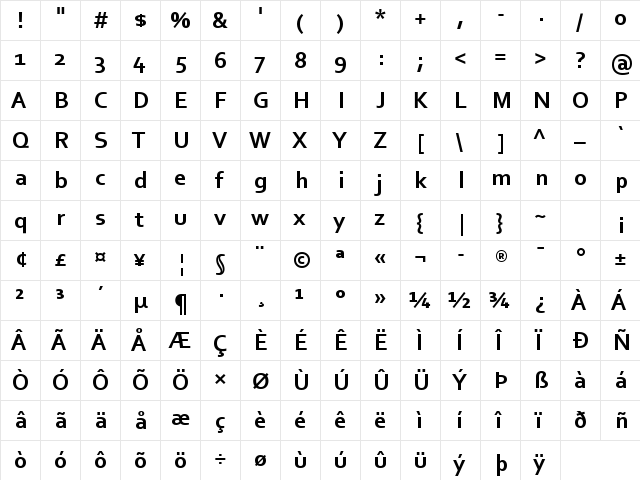
Corbel Bold
| Foundry | Microsoft Corporation |
| Designer | Jeremy Tankard |
Design Context for Corbel Typeface
Corbel offers clean, dependable letterforms without strong stylistic allegiance, making it a practical choice for designers who need flexibility. The heavy weight commands attention and anchors typographic hierarchies.